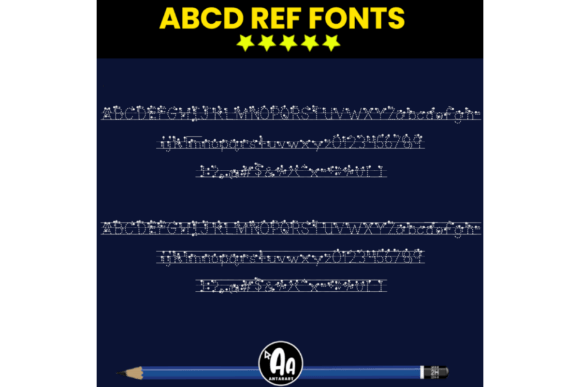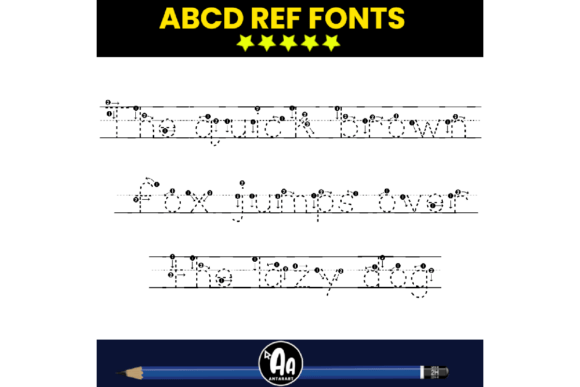
The Dashed Arrows Lined Duo Font: A Comprehensive Handwriting Solution for Early Learners
Are you a designer, crafter, or educator looking for a font that can help early learners develop their handwriting skills? Look no further than the Dashed Arrows Lined Duo Font. This innovative font is designed to provide a complete handwriting solution for young students, combining dotted tracing, directional arrows, and numbered stroke order with two ruled formats (half and full lines).
What is the Dashed Arrows Lined Duo Font?
The Dashed Arrows Lined Duo Font is a unique and comprehensive font that offers a handwriting solution for early learners. It includes uppercase and lowercase letters, numbers (0–9), and essential punctuation, making it ideal for full handwriting instruction. The font is inspired by traditional school handwriting styles and is perfect for creating interactive, visually guided worksheets that support consistent handwriting development.
Key Features of the Dashed Arrows Lined Duo Font
- Dotted Tracing: The font features dotted tracing, which helps students develop their handwriting skills by providing a clear guide for writing.
- Directional Arrows: The font includes directional arrows, which indicate the correct direction and sequence of strokes for writing.
- Numbered Stroke Order: The font features numbered stroke order, which helps students learn the correct sequence of strokes for writing.
- Two Ruled Formats: The font includes two ruled formats: half and full lines. This provides students with clear guidance and spatial feedback, helping them develop their handwriting skills.
- Uppercase and Lowercase Letters: The font includes both uppercase and lowercase letters, making it ideal for full handwriting instruction.
- Numbers and Punctuation: The font includes numbers (0–9) and essential punctuation, providing students with a comprehensive handwriting solution.
Benefits of the Dashed Arrows Lined Duo Font
The Dashed Arrows Lined Duo Font offers a range of benefits for early learners, including:
- Improved Handwriting Skills: The font provides students with clear guidance and direction, helping them develop their handwriting skills.
- Increased Confidence: The font’s structured and multi-sensory approach helps students develop confidence in their handwriting abilities.
- Consistent Handwriting Development: The font’s consistent design and layout help students develop consistent handwriting habits.
Uses of the Dashed Arrows Lined Duo Font
The Dashed Arrows Lined Duo Font is versatile and can be used in a range of applications, including:
- Printable Practice Sheets: Create interactive and visually guided worksheets that support handwriting development.
- Bulletin Board Letters: Use the font to create eye-catching bulletin board letters and decorations.
- Classroom Décor: Use the font to create classroom decorations and displays that support handwriting development.
- Editable Student Name Templates: Create editable student name templates that help students practice writing their names.
The Dashed Arrows Lined Duo Font is a comprehensive handwriting solution for early learners. Its unique combination of dotted tracing, directional arrows, and numbered stroke order with two ruled formats provides students with clear guidance and direction. The font’s versatility and range of uses make it an ideal choice for designers, crafters, and educators looking to support handwriting development in young students.